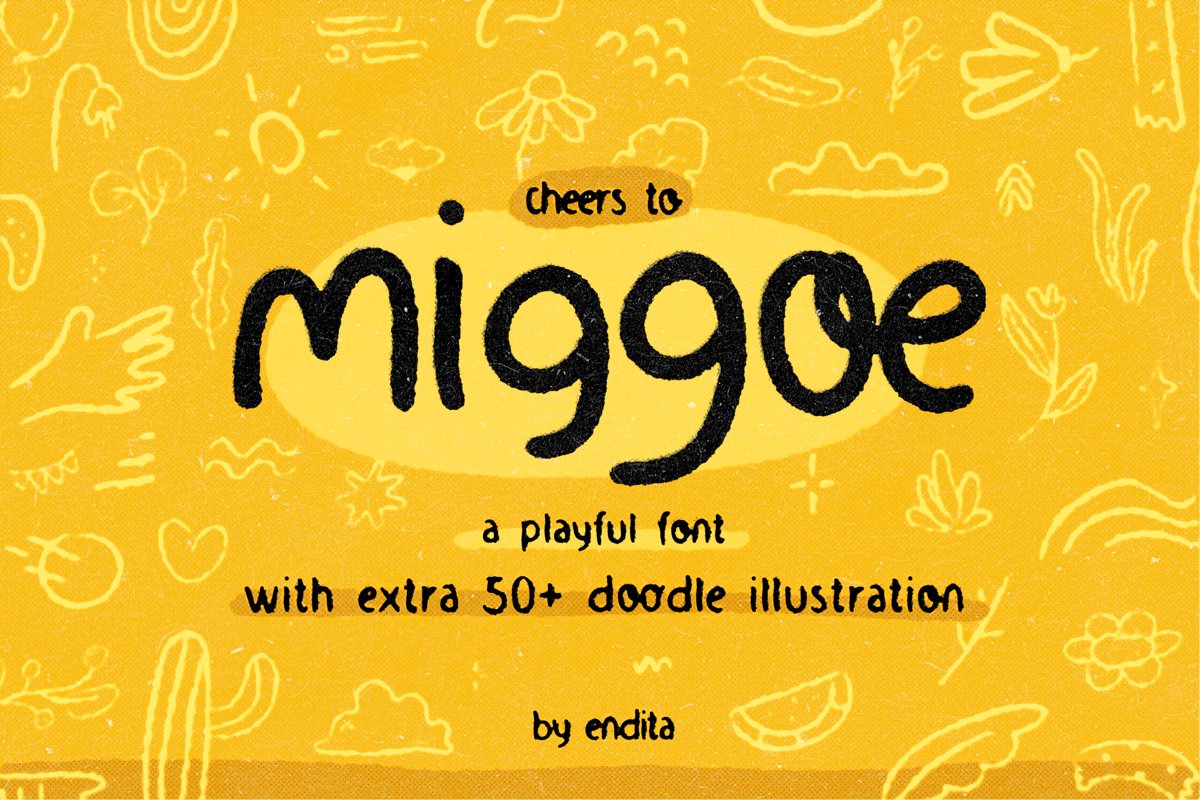
Miggoe
Miggoe is a playful font with extra doodles. It's perfectly suited for your any cute & educational stuffs!Features:
• 216 Glyphs
• Ligatures Character
• Multi-language Characters